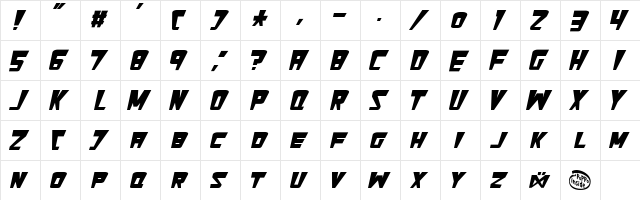
Keroway2000 Italic
Design Context for Keroway2000 Typeface
Keroway2000 is a composed and adaptable typeface that performs quietly and consistently across a wide range of design contexts. The dynamic lean of this cut emphasises speed and emphasis in any layout.
Pro Tip: Try Keroway2000 for annotation and caption copy alongside an upright companion — the contrast in angle creates a dynamic but ordered typographic system.